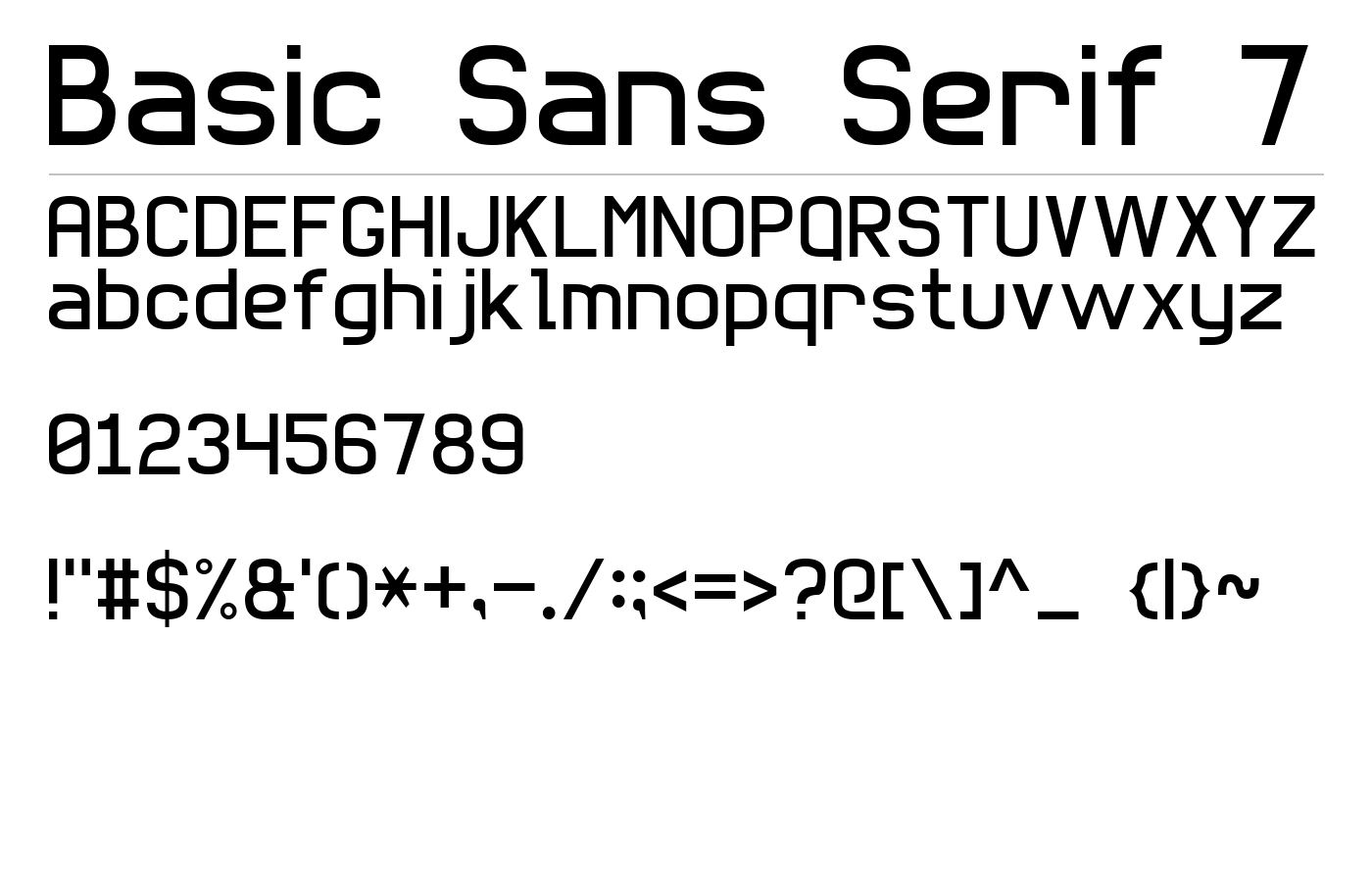
Basic Sans Serif 7 is a clean and modern sans serif font with a slightly condensed width and a medium x-height, making it highly readable and efficient in space usage. Its consistent stroke weight and geometric shapes give it a straightforward and utilitarian feel, ideal for contemporary branding, user interfaces, and technical documents that require clarity and no-nonsense style. This font works well for headlines, signage, and digital platforms where legibility and a modern aesthetic are key.
Basic Sans Serif 7 Font
About Basic Sans Serif 7 Font
| Font family | Basic Sans Serif 7 Font |
| Designer | Sizenko Alexander |